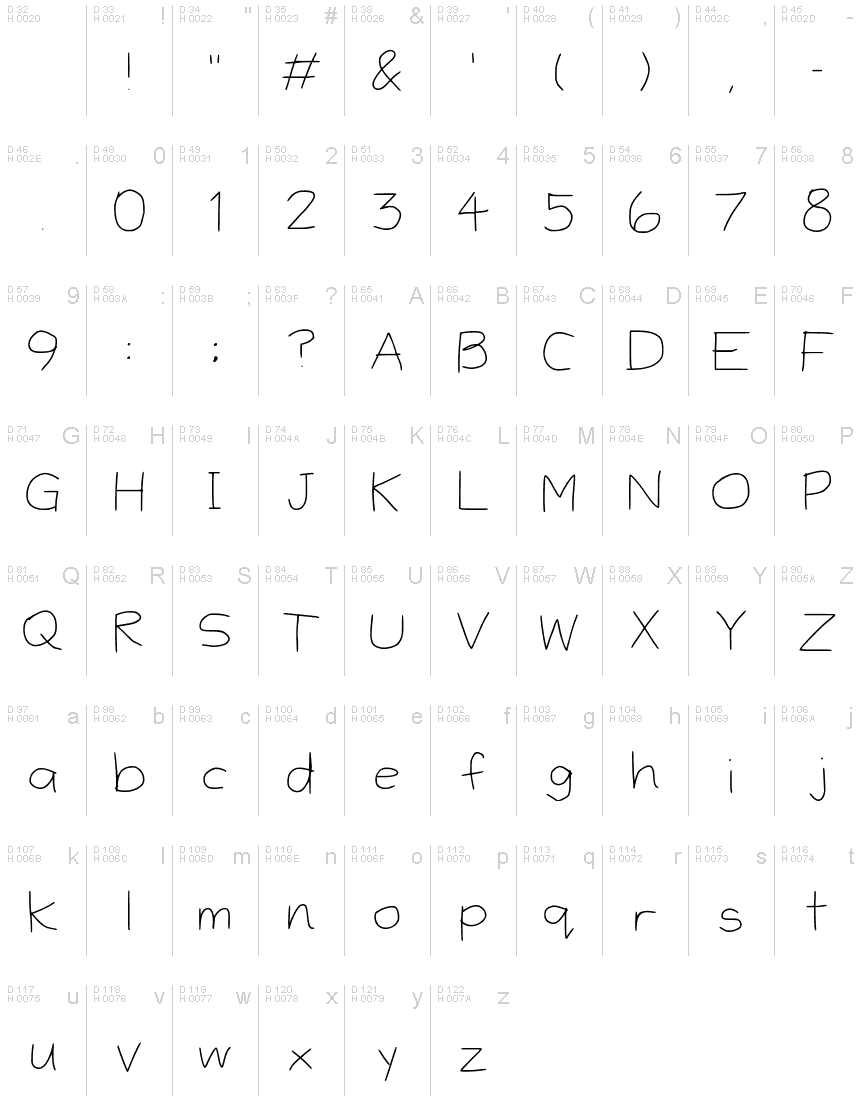
Ibis Handwriting Regular
Made this using caligraphr and ibis paint.
It might look very bad but this is my hand writing (kind of)
Note: i didnt make symbols here and its only letters and numbers so enjoy i guess